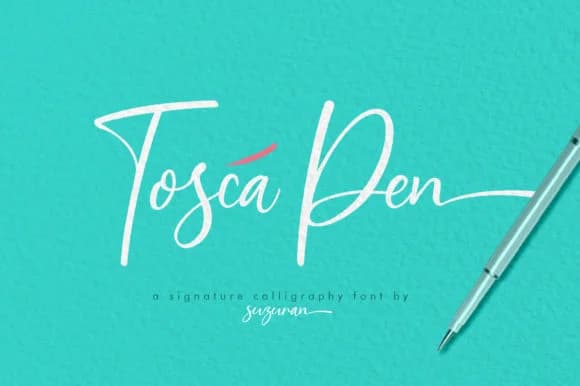
Picture yourself designing a custom wedding invitation suite where the handwriting needs to feel personal but still polished. Tosca Pen Script, created by suzurantype, captures exactly that balance between organic character and refinement. The playful, flowing letterforms give you the warmth of a handwritten touch without sacrificing readability or elegance at the sizes where it matters most.
This script excels for wedding invitation suites, boutique skincare packaging labels, and Etsy shop branding materials that need a personal touch. Use it for luxury product packaging where handwriting signals care and craftsmanship, custom greeting card designs, or decorative elements on personalized gift tags. The pen-style stroke construction means each letter carries genuine character that translates well across different applications. At large poster sizes the letterforms hold their impact, while at moderate reading sizes the stroke weight remains crisp and legible without looking thin or fragile.
The font includes the Night in Kansas bonus font as well, giving you a secondary option when the project mood shifts. Tosca Pen renders with clarity even when enlarged significantly, so you keep the hand-drawn quality while maintaining professional polish. Find it on Creative Fabrica and start exploring what it brings to your next project.
Tosca Pen Script Font is a script font that shines as a display or heading face. Pair it with a clean sans-serif or serif font for body text β the contrast creates a clear hierarchy while the two styles stay balanced and easy to read.
Tosca Pen Script Font